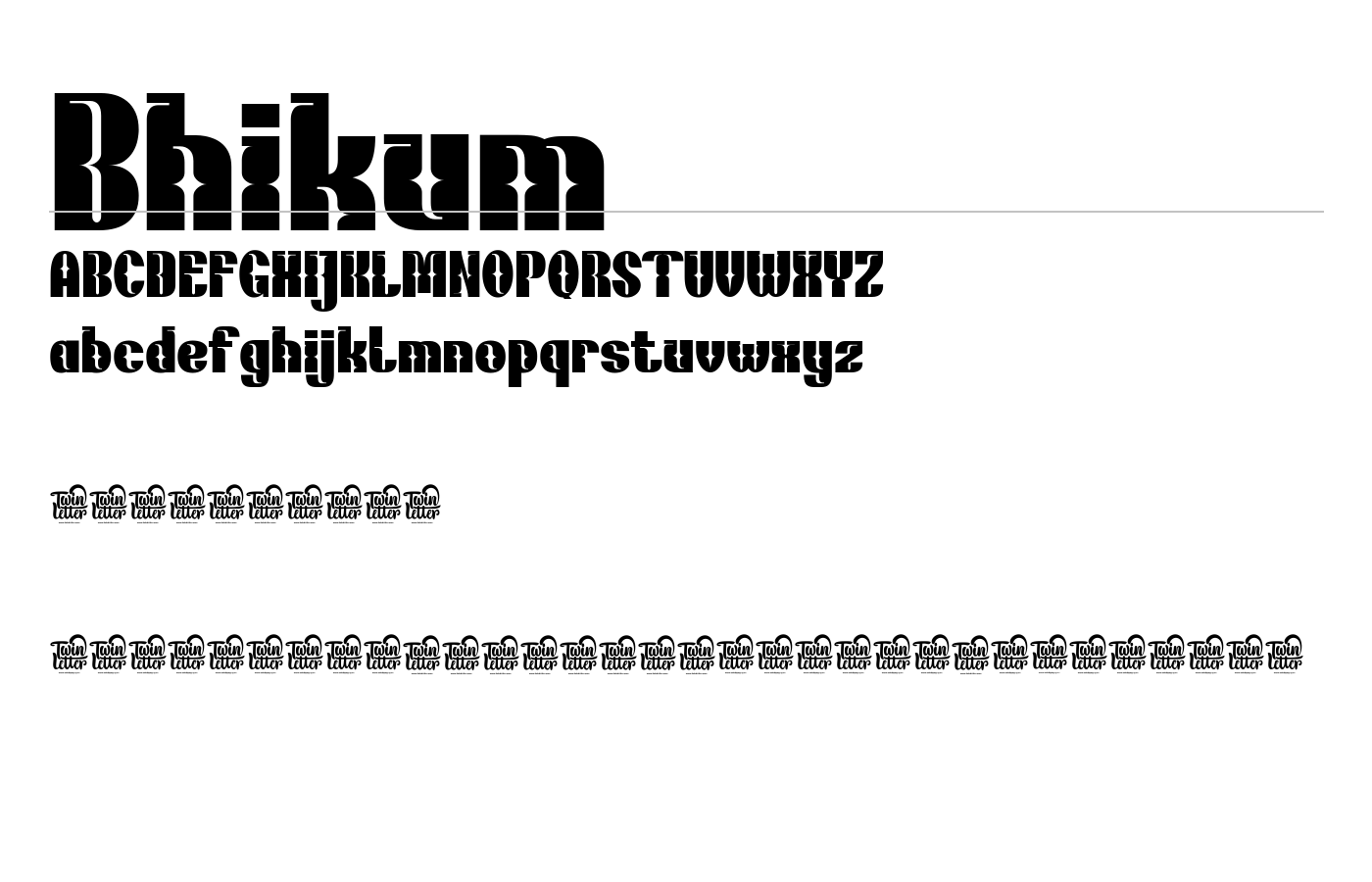
Bhikum is a bold, condensed serif font that combines modern and vintage vibes through its strong geometric shapes and high contrast between thick and thin strokes. Its distinctive block-style serifs and unique letterforms give it a dramatic, eye-catching personality ideal for impactful headlines, logos, and branding where a bold statement is needed. This font works well in fashion, packaging, and editorial design, where a sense of strength and style is desired.
Bhikum Font
About Bhikum Font